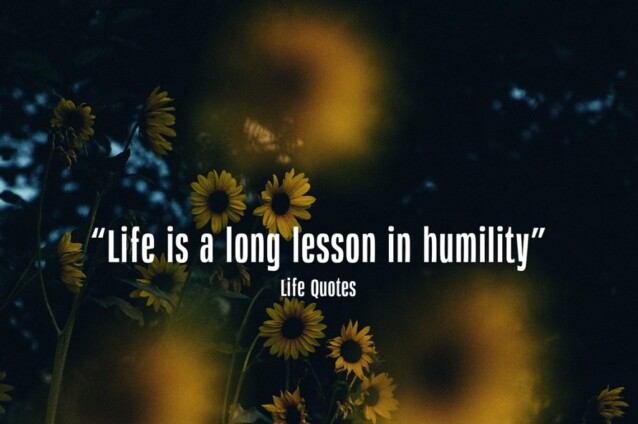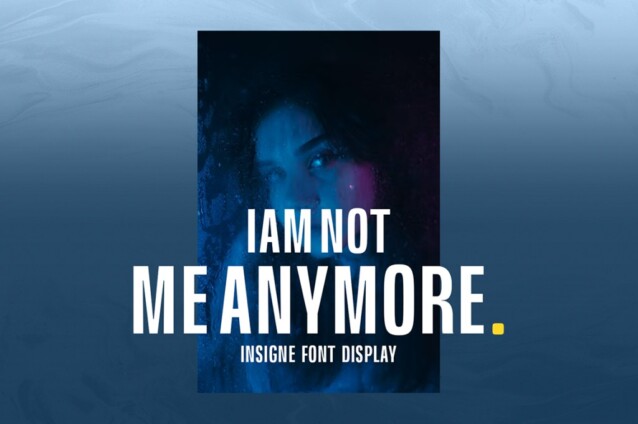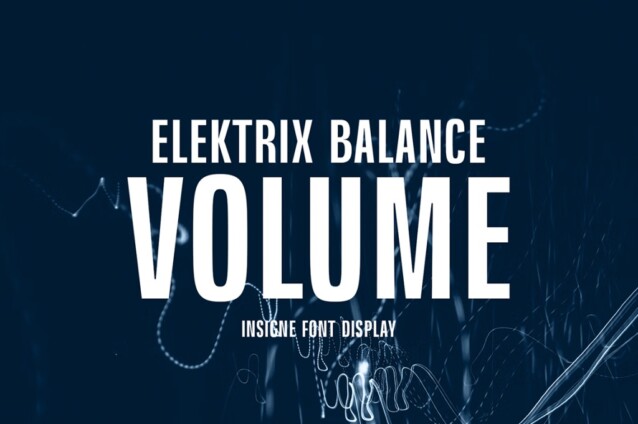
Insigne Font
Insigne Font is a stylish sans-serif typeface from gianstudio12 that embodies the essence of display fonts with a clean, modern aesthetic. This font stands out with its sleek and contemporary design, characterized by smooth lines and a minimalist approach. Add it confidently to your projects and you will love the results!